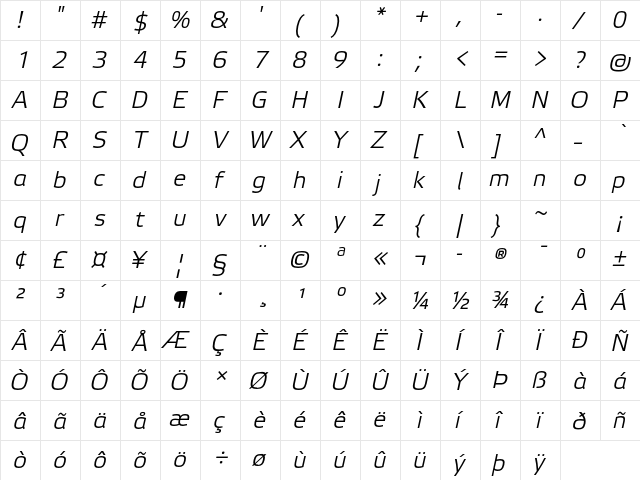
Elektra Light Pro Italic
Design Context for Elektra Light Pro Typeface
Elektra Light Pro is a composed and adaptable typeface that performs quietly and consistently across a wide range of design contexts. The slanted form adds forward momentum and visual energy. The delicate stroke weight brings airiness and refinement to layouts.
Pro Tip: Try Elektra Light Pro for annotation and caption copy alongside an upright companion — the contrast in angle creates a dynamic but ordered typographic system.